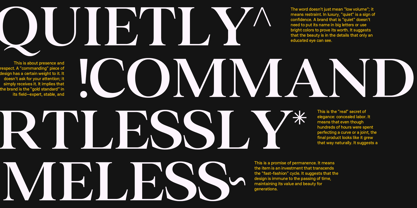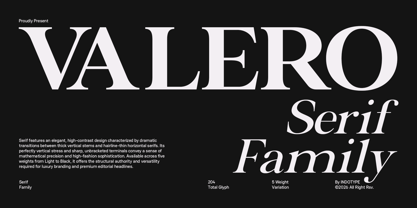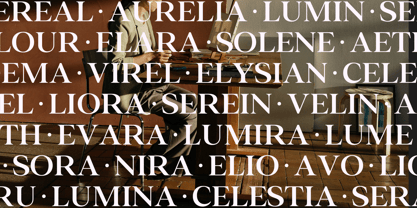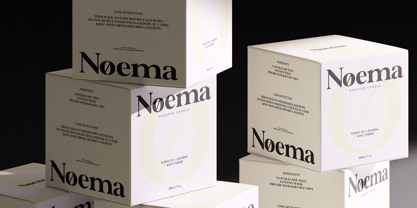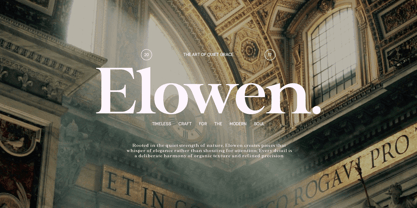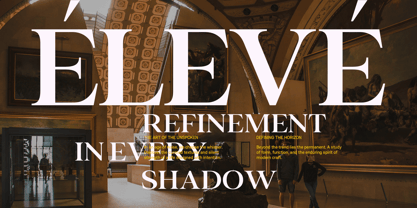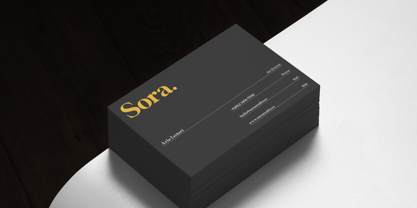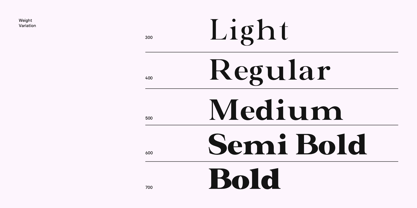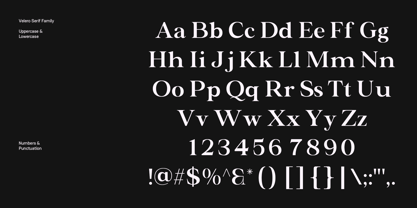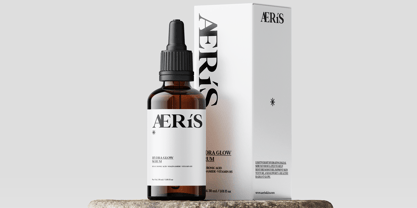
IT Valero
The IT Valero Font Family was designed by Dede Kurniawan and published by Indotype. IT Valero contains 10 styles and family package options. More about this family
Valero is a high-contrast classic serif typeface designed for luxury branding, premium editorial design, and high-fashion visual communication. Crafted by INDOTYPE, Valero draws from the tradition of rational, neoclassical serif typography while pushing into bold contemporary territory. Its dramatic stroke contrast — with thick vertical stems paired against hairline-thin horizontal serifs — creates a visual tension that commands attention at any scale. Design Characteristics Valero's letterforms are built on a foundation of perfectly vertical stress, giving the typeface a mathematical exactness that reads as authoritative and self-assured. The sharp, unbracketed serifs — narrow and geometric — reinforce its high-fashion sensibility, echoing the aesthetic codes of luxury couture and premium publishing. The generous x-height ensures excellent legibility in both display and subheading applications, while the open counters maintain clarity even at smaller sizes. Optically refined character spacing and carefully balanced proportions make Valero a versatile performer across print and digital mediums. Each glyph has been drawn to feel simultaneously timeless and contemporary — a serif that belongs equally in a Vogue editorial spread and a modern tech brand's annual report. Weights & Styles The Valero Serif Family is available in 5 weights: Light, Regular, Medium, SemiBold, and Bold — spanning a broad tonal range from delicate editorial refinement to commanding display impact. Each weight is accompanied by an italic variant, expanding the family's expressive range for subheadings, captions, pull quotes, and decorative typesetting. With 204 total glyphs per style, Valero supports comprehensive Latin character coverage including standard punctuation, currency symbols, ligatures, and diacritical marks — making it suitable for multilingual publishing across Western European languages. Ideal Use Cases Valero is engineered for applications where typographic elegance is non-negotiable. It excels in: luxury and fashion brand identities, magazine and editorial headlines, book cover design, packaging for premium consumer goods, high-end invitations and stationery, and digital brand experiences for lifestyle, beauty, and hospitality sectors. The heavier weights (Bold and Black) are particularly striking for display headline applications where visual impact is paramount. The Light and Regular weights perform gracefully in subheading and caption roles, creating elegant typographic hierarchies when paired with clean sans-serif body text.